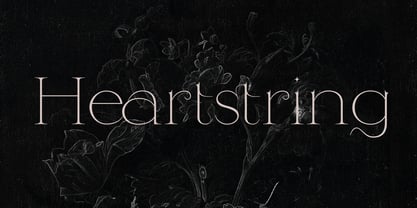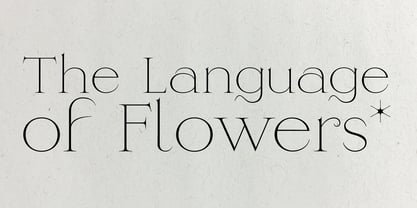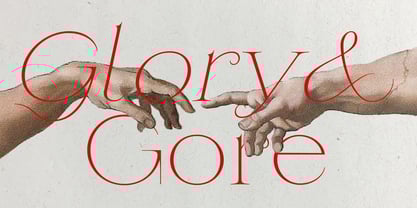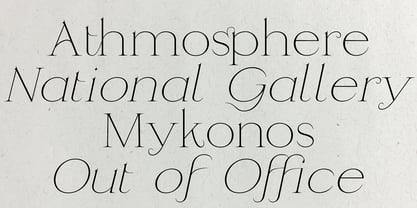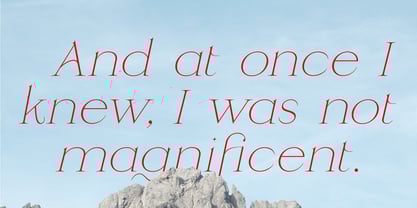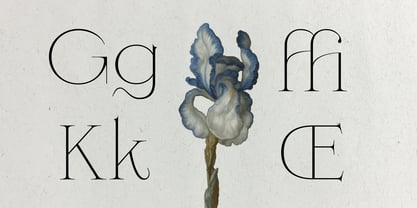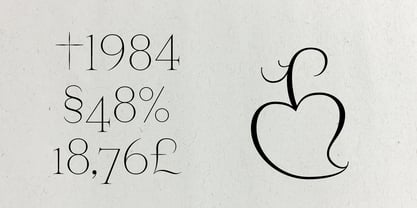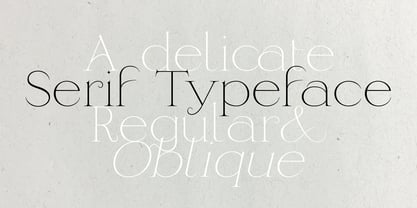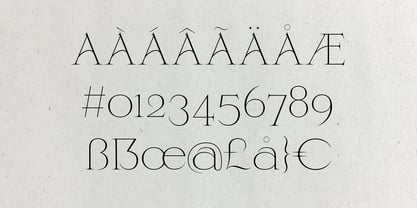
Heartstring
Heartstring is an delicate and lightweight serif typeface developed by Lost Letters Foundry from 2022 till 2025. Heartstring is an elegant serif font inspired by the fragile nature of connection. 250 Glyphs offer diverse language support including sophisticated ligatures. Typographic refinement and subtle details makes Heartstring displayed best in larger font sizes like headlines. Heartstring comes in two styles – regular and oblique. About 250 Glyphs for diverse language support Ligatures Old Style Figures Two Styles: Regular and Oblique